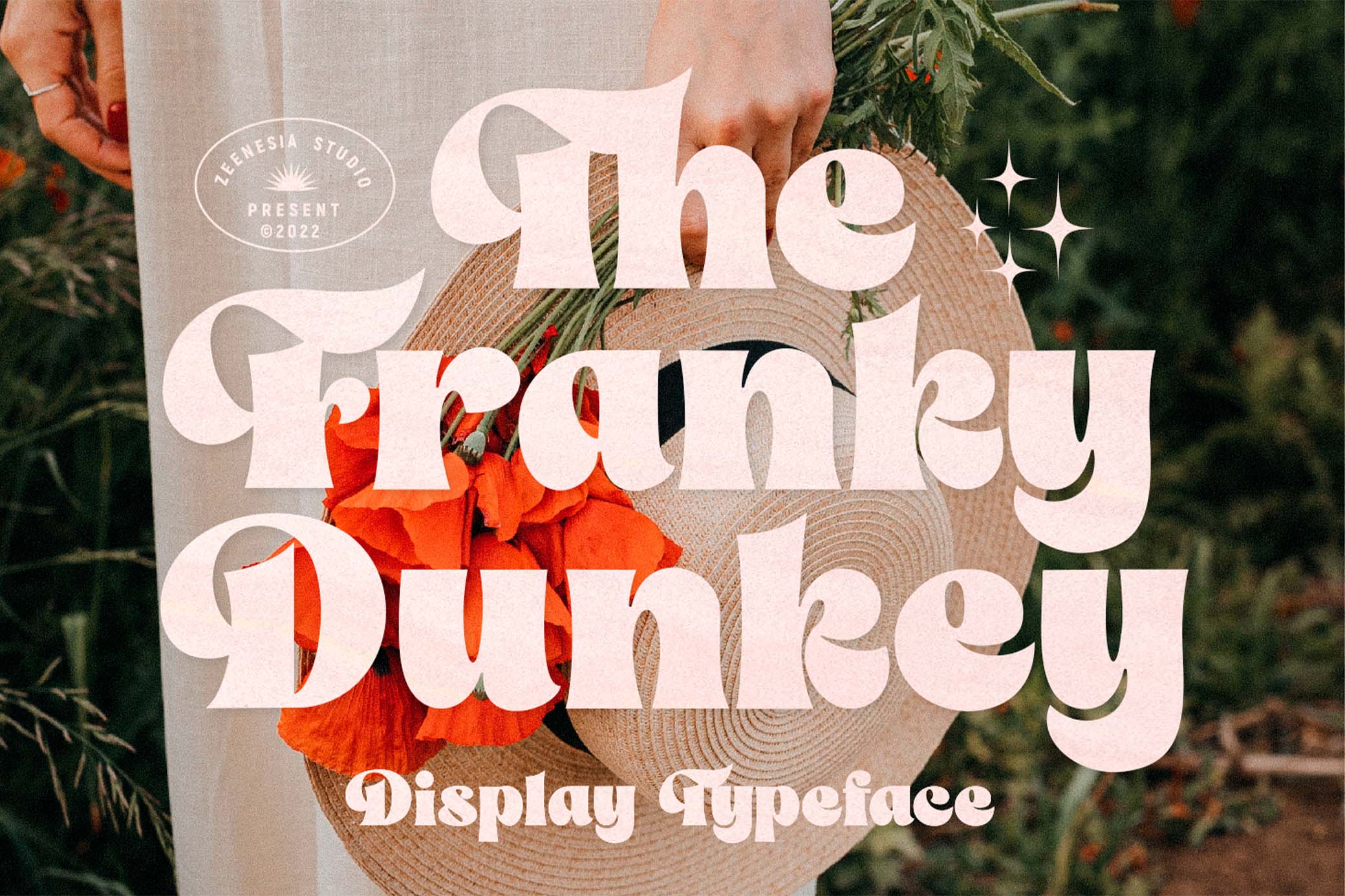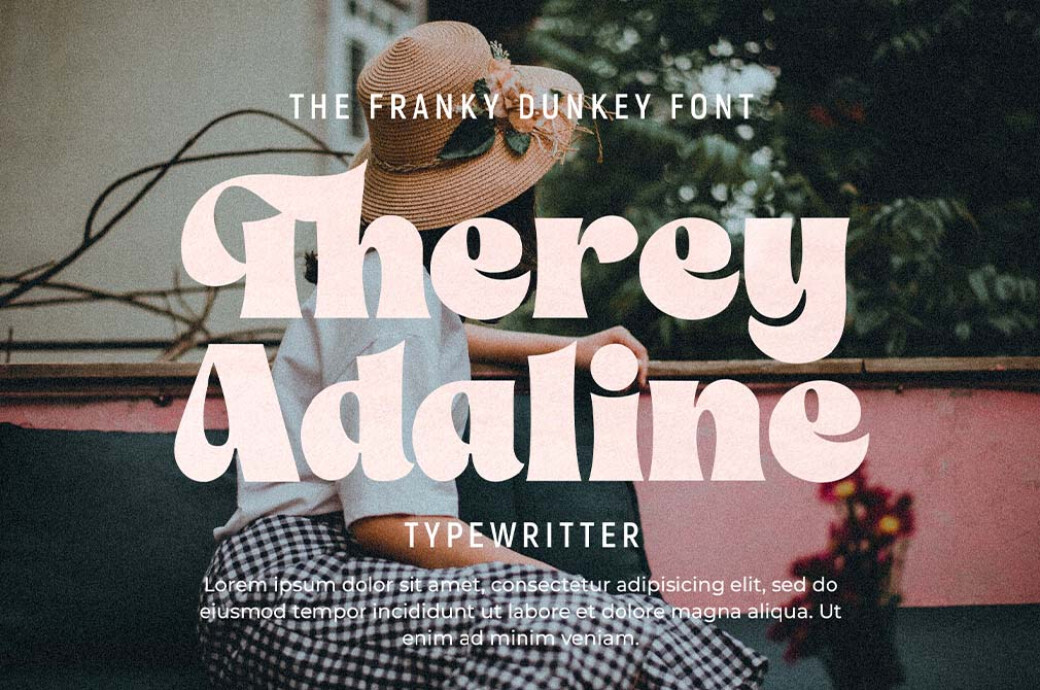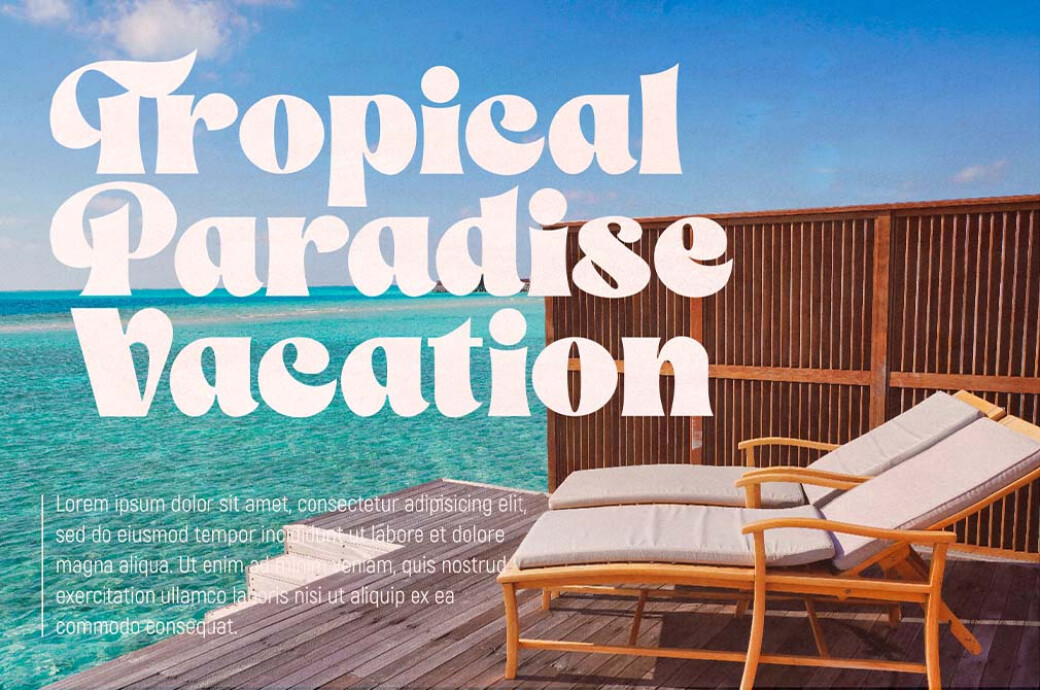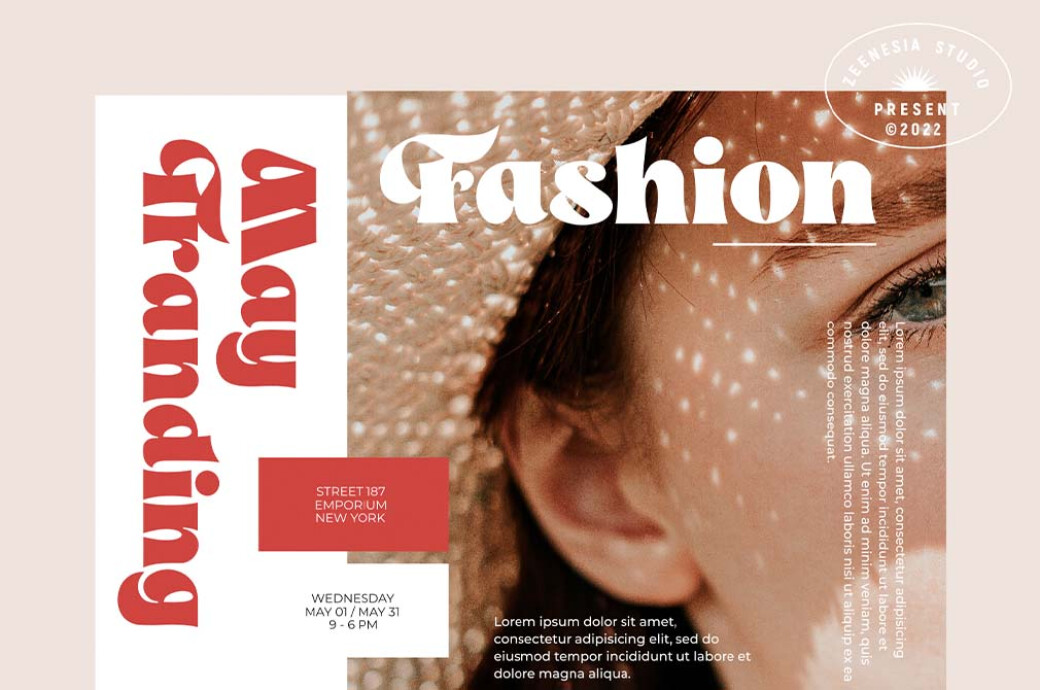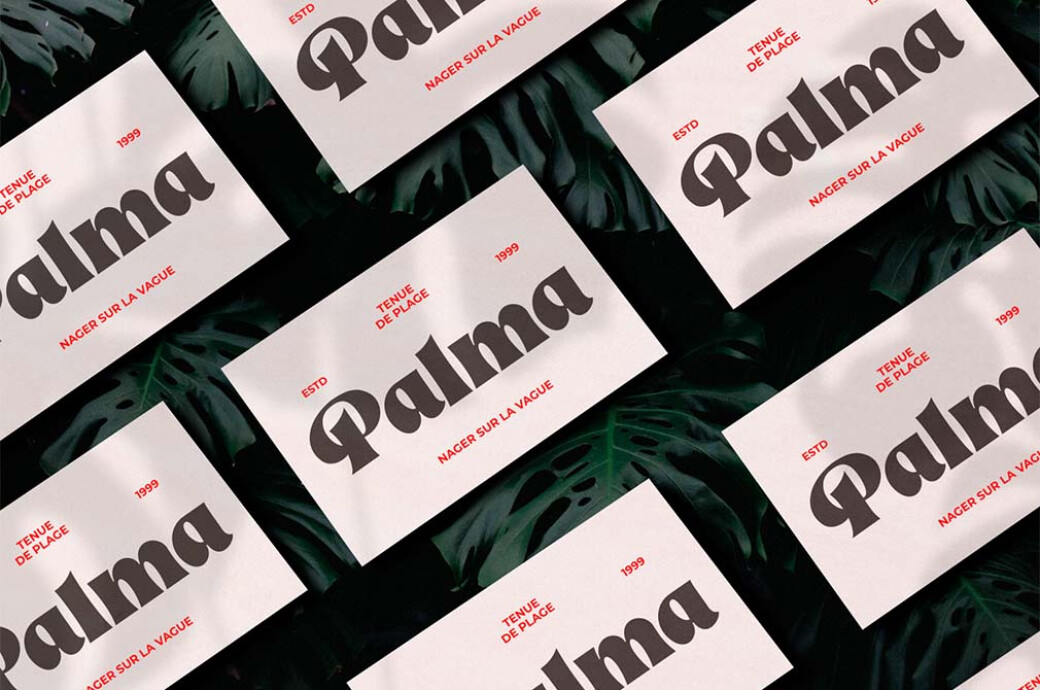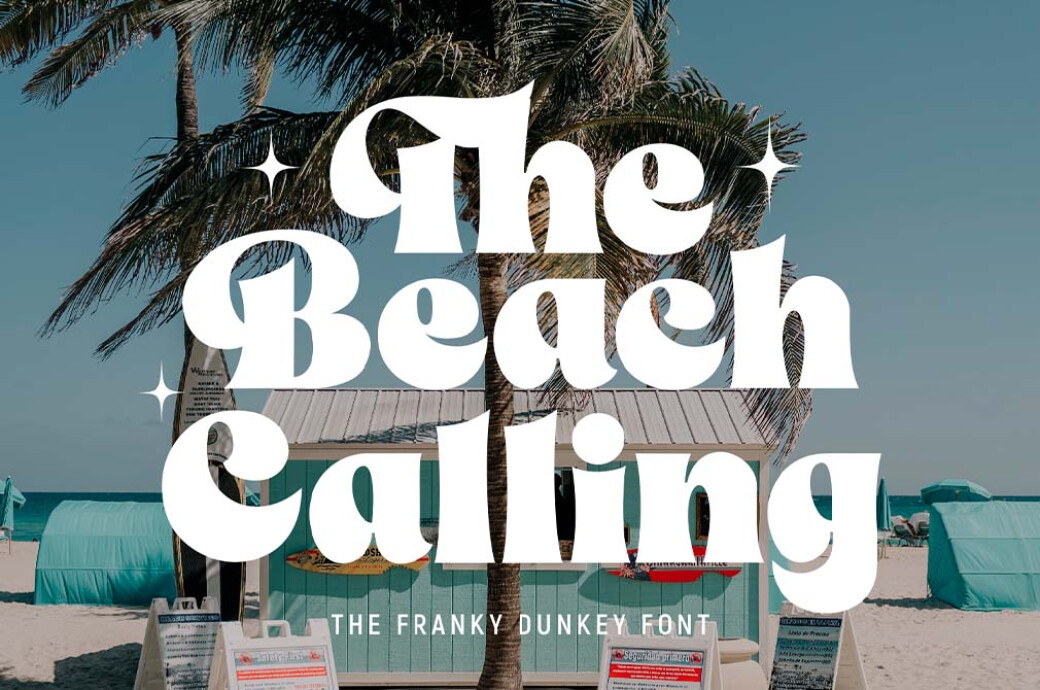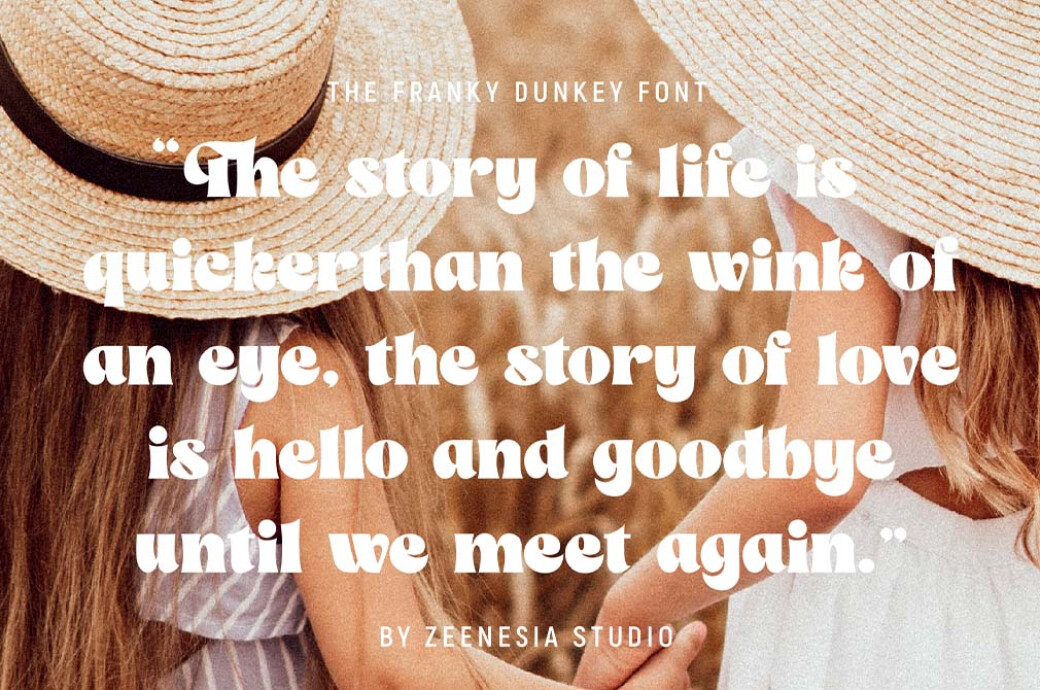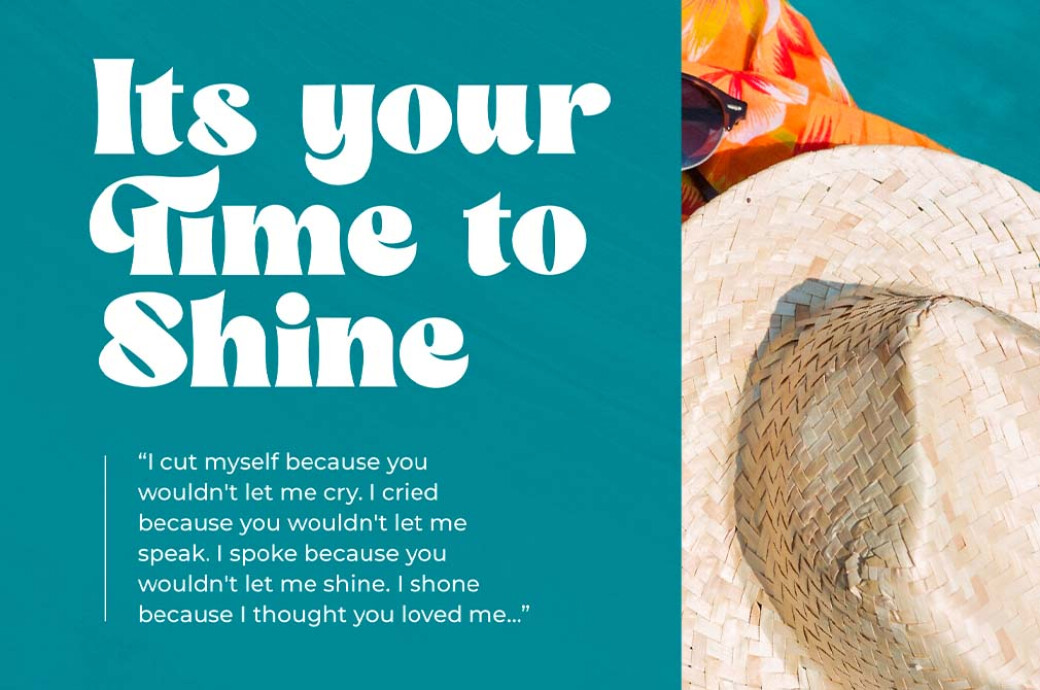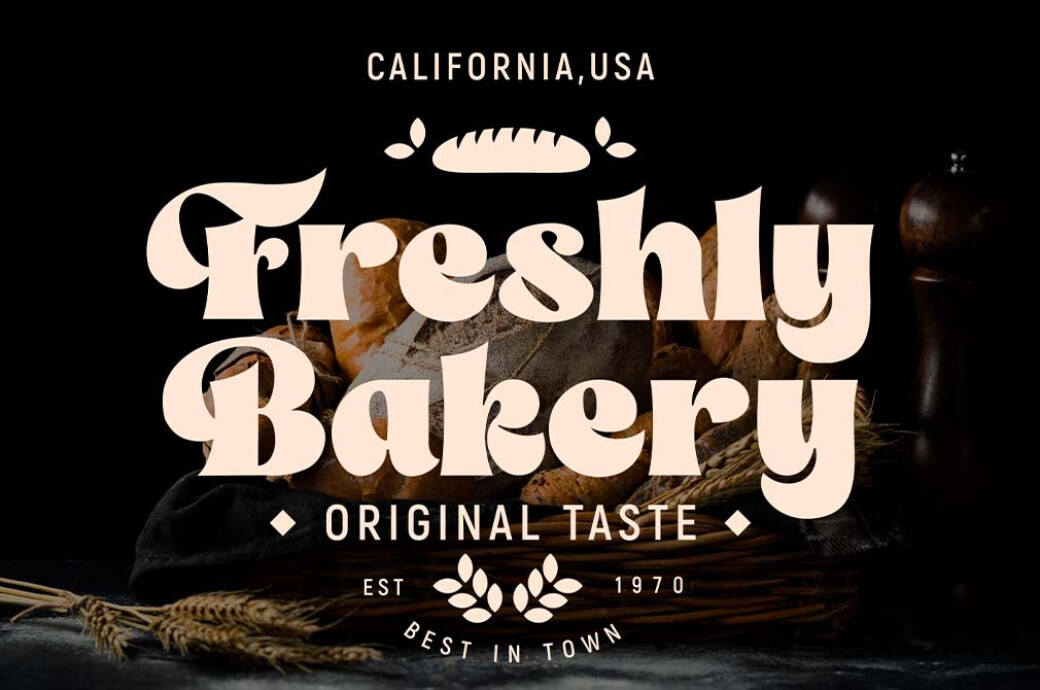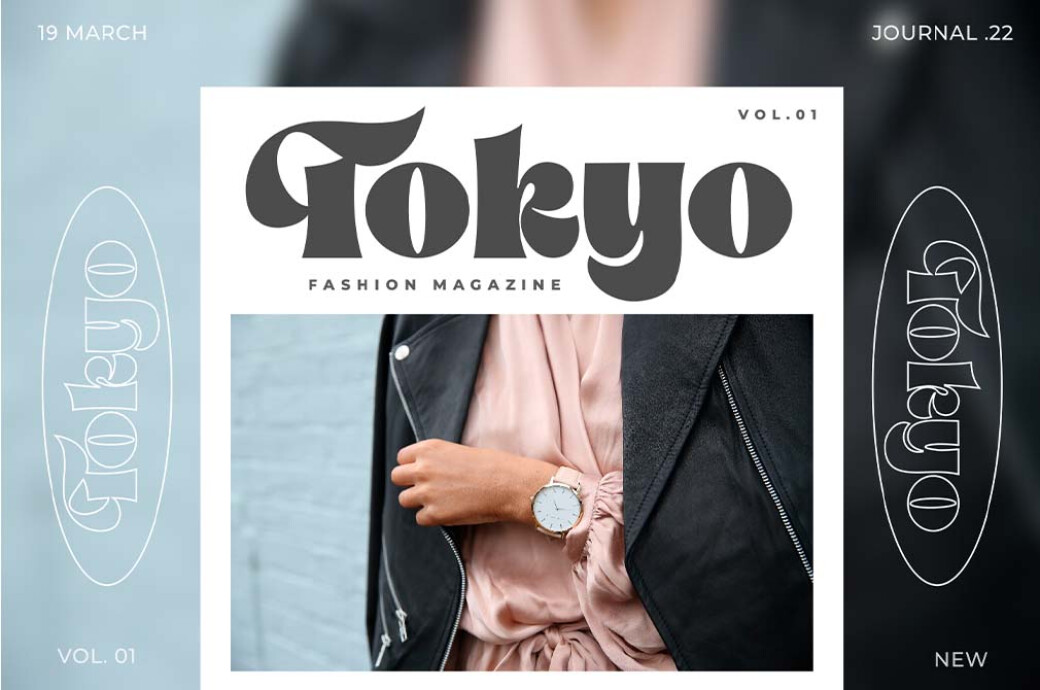
The Franky Dunkey — Display Typeface
The Franky Dunkey
Looking for something decorative and curvy but still perfectly legible? Got you! Meet the Franky Dunky, a serif font that will wrap your message into a funky aesthetic.
Perfect for editorial projects, logos, branding, product packaging, or simply decorative text overlay to any image. This versatile font can do almost any large-scale project. The set of glyphs is pretty standard yet covers most of the cases you may face — upper and lowercase letters as well as punctuation and numerals. By the way, we just can't shake the feeling of a bold and recklessly creative 70’s magazine ads vibe. Do you feel the same?